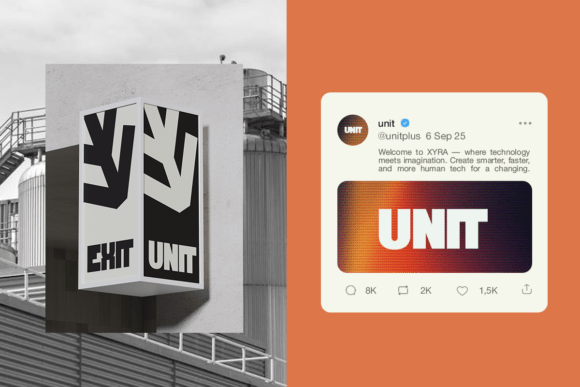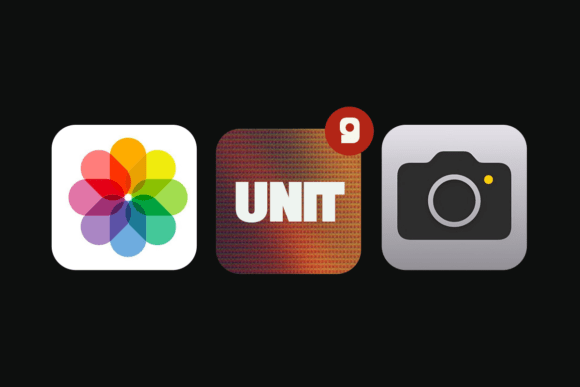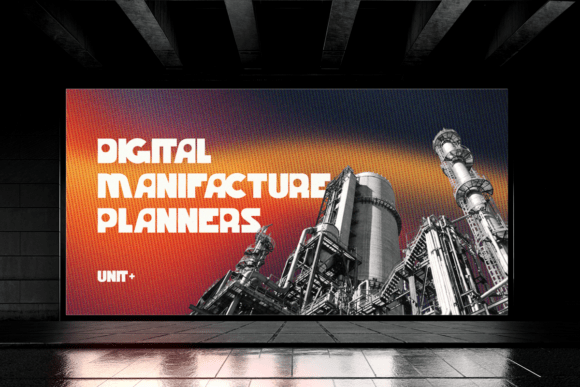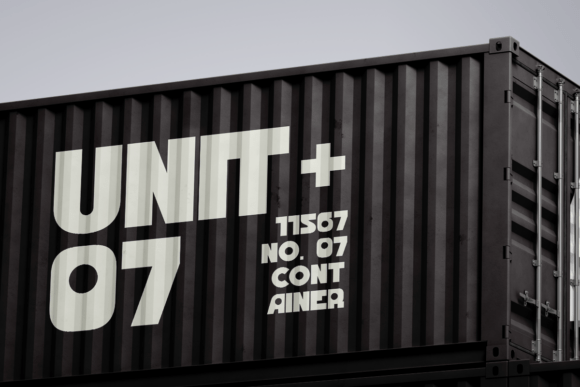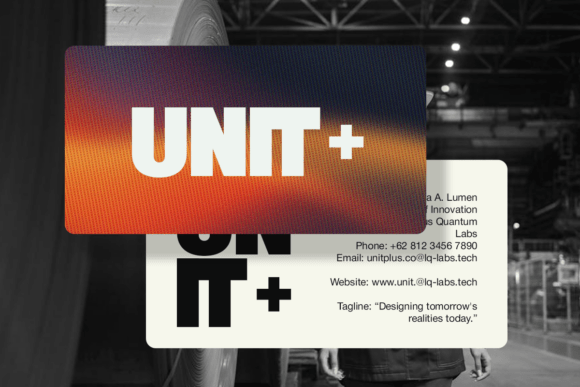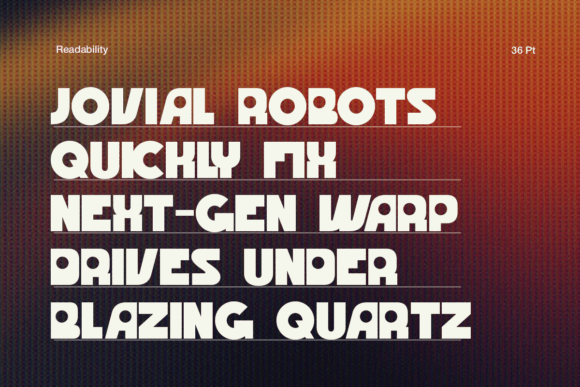
Aroin Font: The Ultimate Choice for Modern, Tech-Driven Brands
In the realm of typography, fonts play a crucial role in shaping the visual identity of a brand. For tech-driven companies, robotics, digital factories, automation, and high-tech engineering firms, a font that exudes modernity, precision, and innovation is essential. This is where Aroin Font comes into play – a bold, sharp, and futuristic display font that embodies the aesthetics of modern manufacturing and industrial systems.
The Inspiration Behind Aroin Font
Aroin Font draws inspiration from the sleek lines, geometric shapes, and mechanical precision that characterize modern industrial design. The font’s creator aimed to craft a typeface that would reflect the dynamism and forward-thinking approach of tech-driven brands. As a result, Aroin Font boasts a strong geometric structure, clean cuts, and a mechanical accuracy that makes it perfect for brands seeking to convey a sense of innovation and progress.
Key Features of Aroin Font
Aroin Font’s design is distinguished by several key features that make it an excellent choice for modern brands:
- Bold and Sharp Lines: Aroin Font’s bold and sharp lines create a powerful and confident visual impact, making it ideal for logos, billboard headlines, and corporate presentations.
- Geometric Structure: The font’s geometric structure provides a sense of stability and precision, reflecting the attention to detail and commitment to quality that tech-driven brands strive for.
- Clean Cuts and Mechanical Precision: Aroin Font’s clean cuts and mechanical precision evoke a sense of modernity and innovation, fitting perfectly with the aesthetics of robotics, digital factories, and automation.
Use Cases for Aroin Font
Aroin Font’s versatility and high-impact look make it suitable for a wide range of applications, including:
- Logos and Industrial Branding: Aroin Font’s bold and futuristic design makes it an excellent choice for logos and industrial branding, helping tech-driven brands establish a strong visual identity.
- Tech Posters and Digital Interfaces: The font’s clean and geometric design ensures that it remains legible and impactful even at large sizes, making it perfect for tech posters and digital interfaces.
- Billboard Headlines and Corporate Presentations: Aroin Font’s bold and sharp lines create a lasting impression, making it ideal for billboard headlines and corporate presentations.
- Motion Graphics and Product Packaging: The font’s futuristic design and mechanical precision make it a great fit for motion graphics and product packaging, helping brands create a cohesive visual identity.
- Futuristic Visual Identities: Aroin Font’s forward-thinking aesthetic makes it an excellent choice for brands seeking to create a futuristic visual identity that sets them apart from the competition.
Why Choose Aroin Font?
In today’s competitive market, a brand’s visual identity plays a crucial role in establishing its reputation and differentiating it from competitors. Aroin Font offers several benefits that make it an attractive choice for tech-driven brands:
- Unique and Memorable: Aroin Font’s bold and futuristic design ensures that a brand’s visual identity stands out and remains memorable.
- Versatile: The font’s versatility makes it suitable for a wide range of applications, from logos and industrial branding to tech posters and digital interfaces.
- Scalable: Aroin Font remains legible and impactful even at large sizes, making it perfect for billboard headlines and corporate presentations.
Aroin Font is a powerful and futuristic display font that embodies the aesthetics of modern manufacturing, industrial systems, and high-tech engineering. Its strong geometric structure, clean cuts, and mechanical precision make it an excellent choice for tech-driven brands seeking to establish a bold and confident visual identity. With its versatility, scalability, and unique design, Aroin Font is the ultimate choice for designers and crafters looking to create a lasting impression.